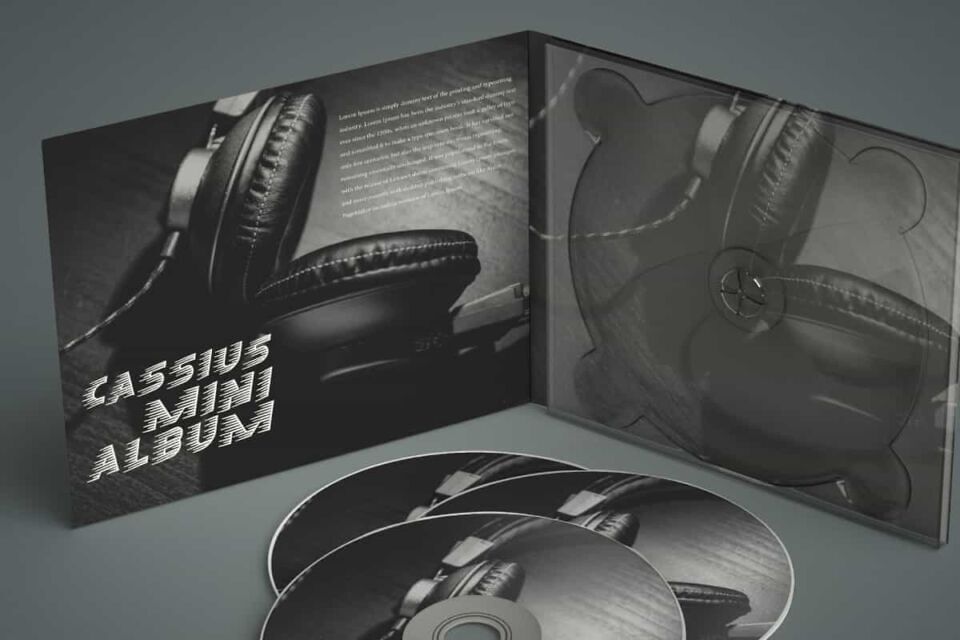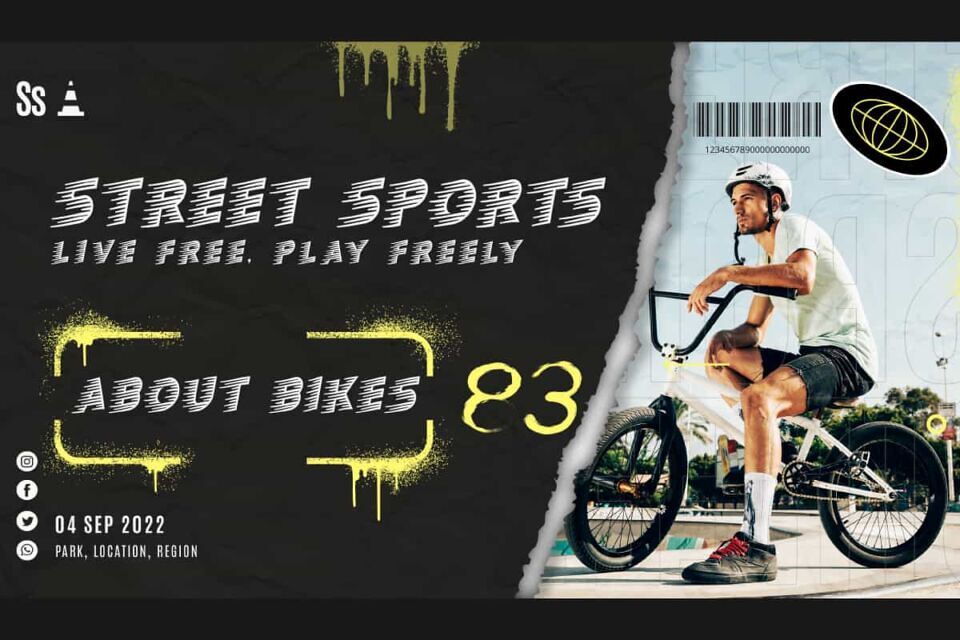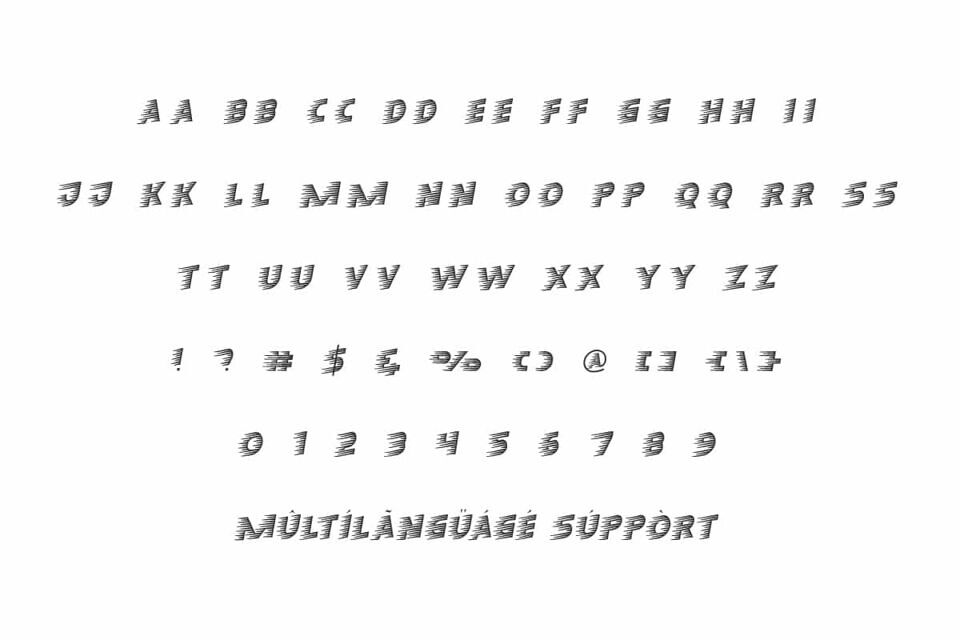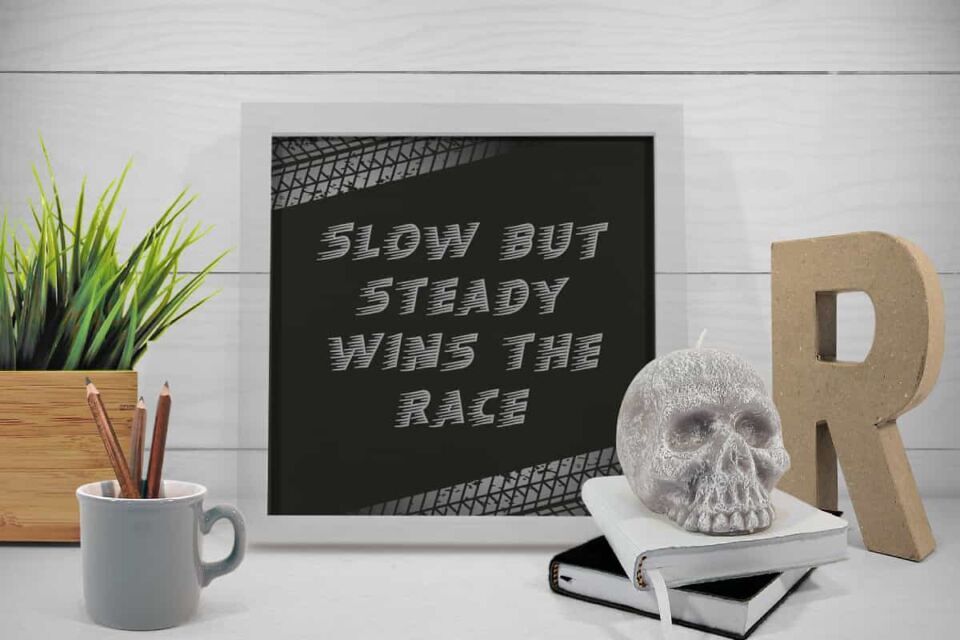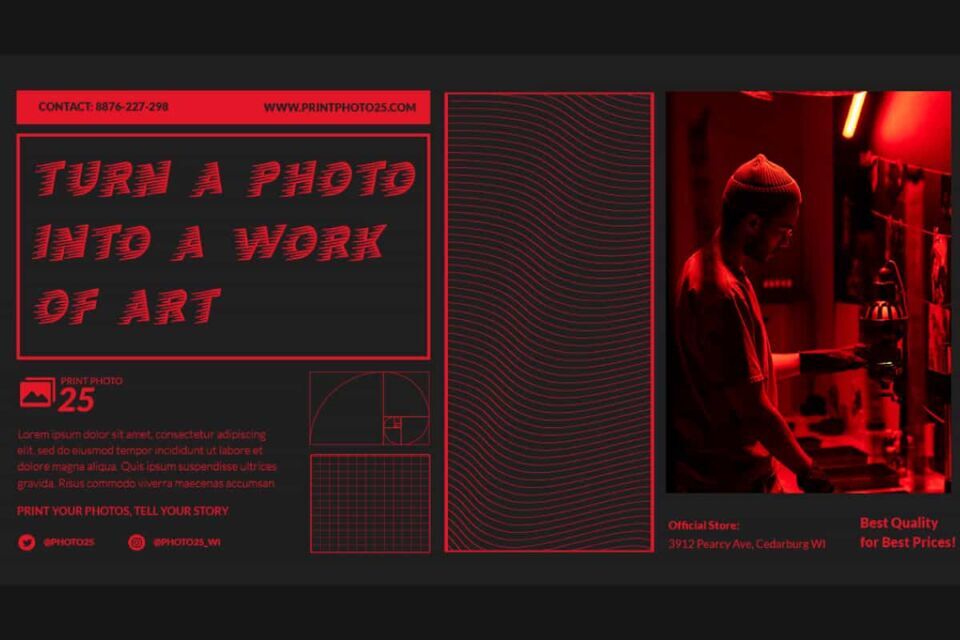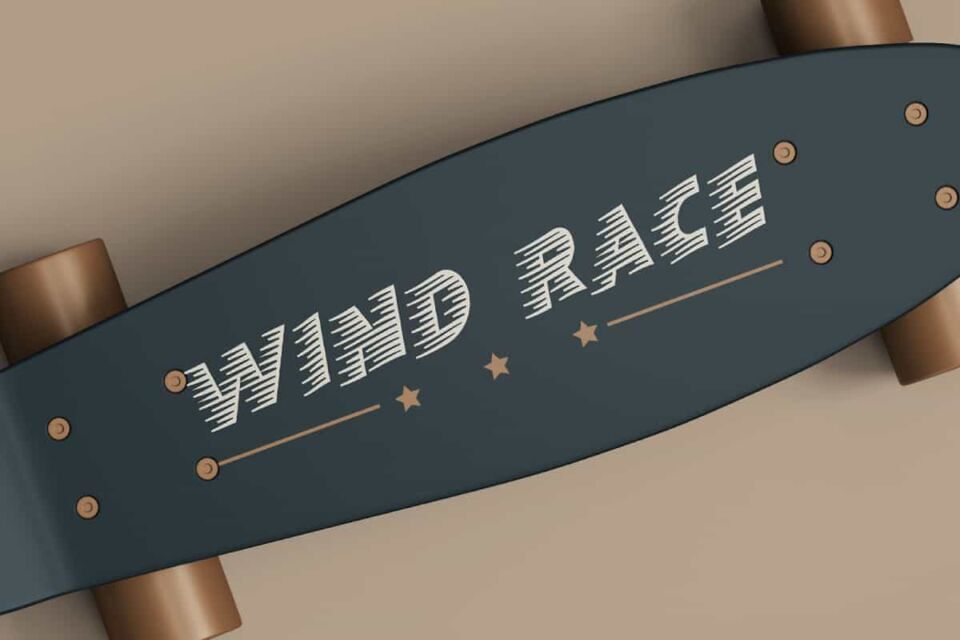
Wind Race Font
Wind Race Font is a unique decorative racing font with a dynamic and energetic look. This font has a letter design inspired by the speed and movement of the wind, giving a modern and bold impression. Suitable for many designs, such as brand image, custom design, invitation, label, poster, product packaging, quotes, screen printing, sign, website, and more!
Wind Race Font includes full set of ALL CAPS for Uppercase and Lowercase Basic Characters, Numerals, Punctuation and Symbol. This awesome font will be ideal for industries, such as accessories, advertising, automotive, cafe, event or festival, fashion, furniture, game, movie, photography, sports, etc.